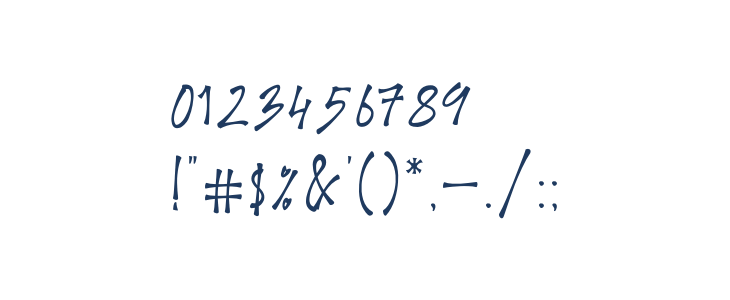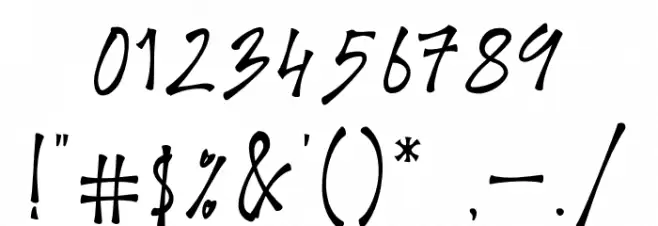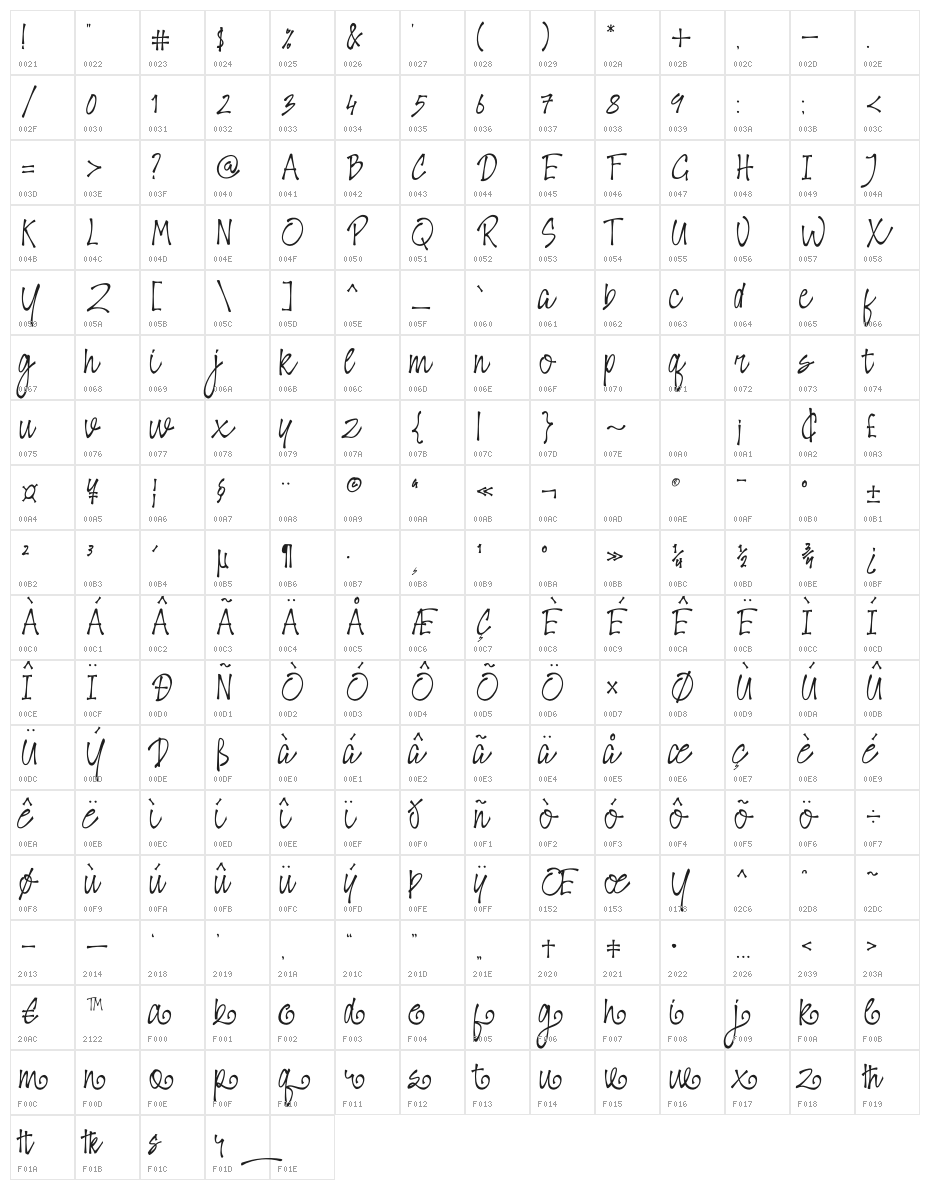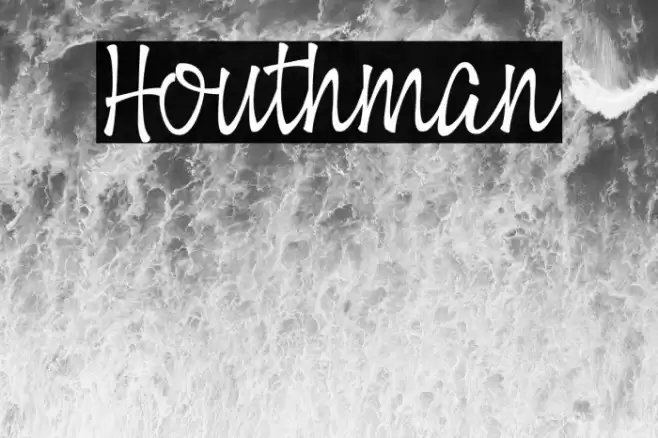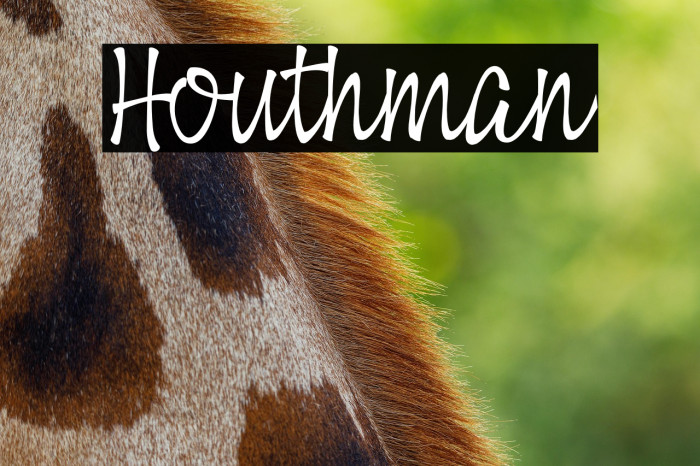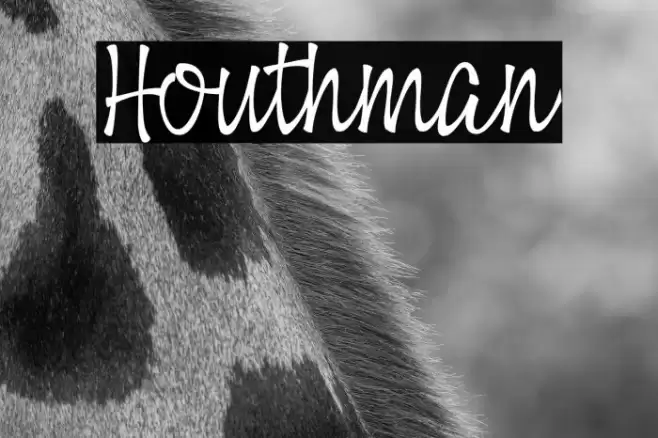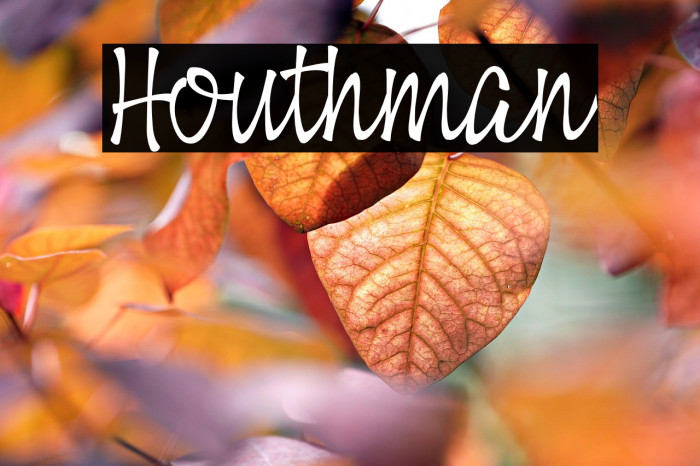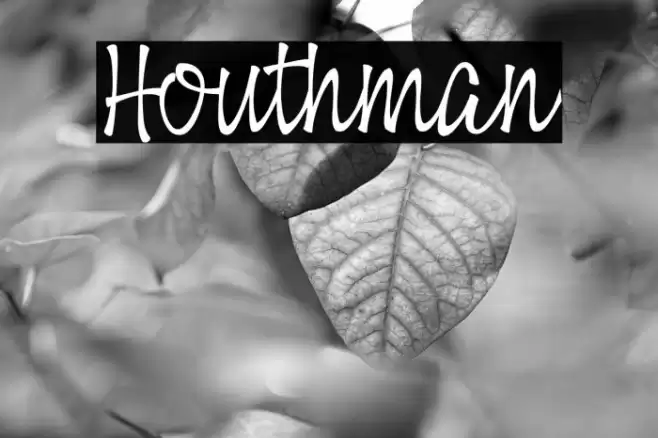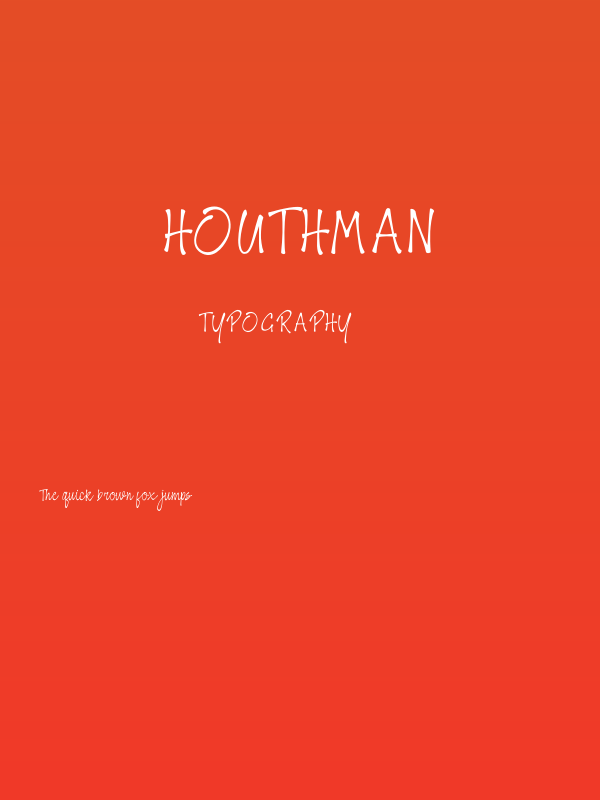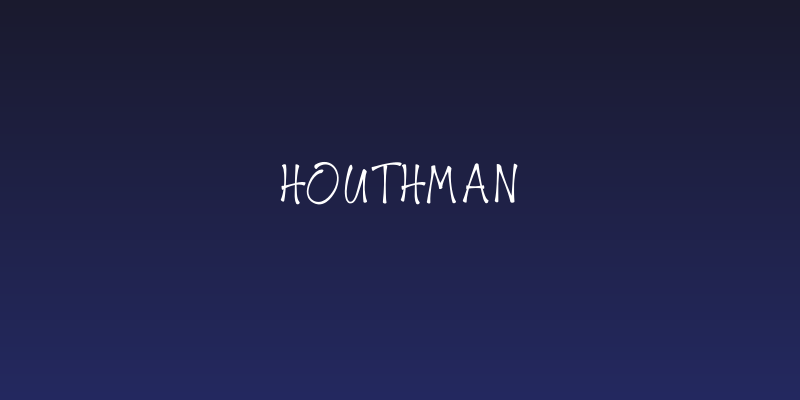
Houthman Font
Houthman Description
This font features a dynamic and expressive handwritten style, characterized by its fluid and slightly irregular strokes. The uppercase letters are bold and assertive, while the lowercase letters exhibit a more cursive and connected flow, adding a personal touch. Numbers and special characters maintain the same lively aesthetic, ensuring consistency across all glyphs. The overall appearance is casual yet stylish, making it suitable for projects that require a personal and approachable feel.
| Overall Style | Casual, Expressive |
| Proposed Projects | Ideal for personal branding, greeting cards, invitations, and creative projects that benefit from a personal touch. |